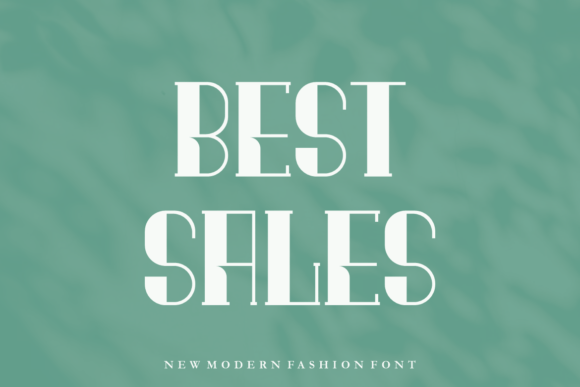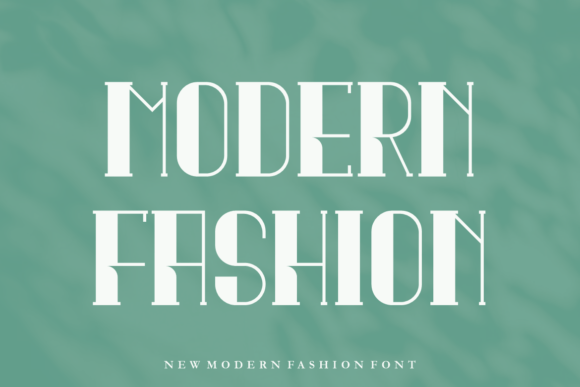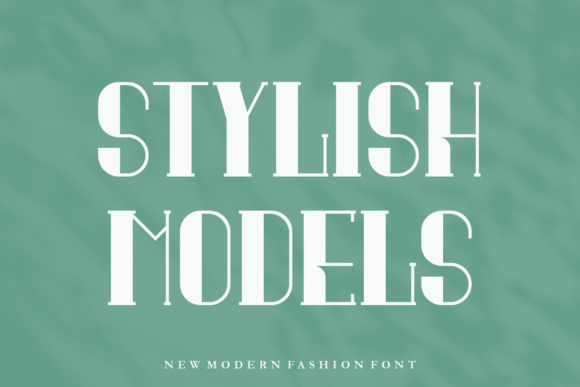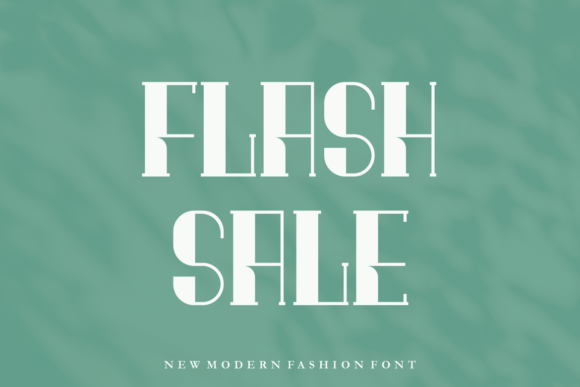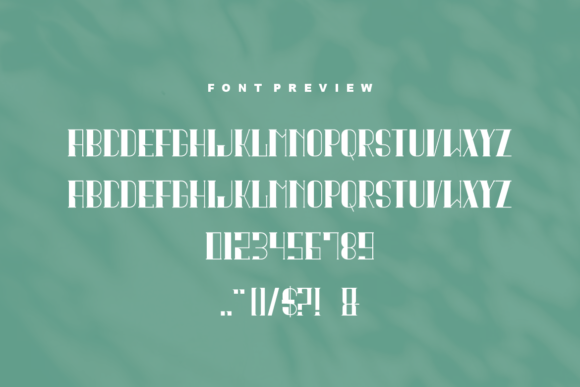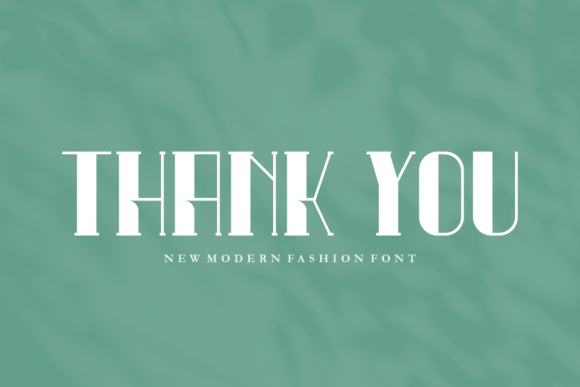
Introduction to Snaqeros Font
Snaqeros is a display font with letters created using bold, thin lines.
It has a modern and striking appearance, making it perfect for eye-catching designs and titles .
Key Features of Snaqeros Font